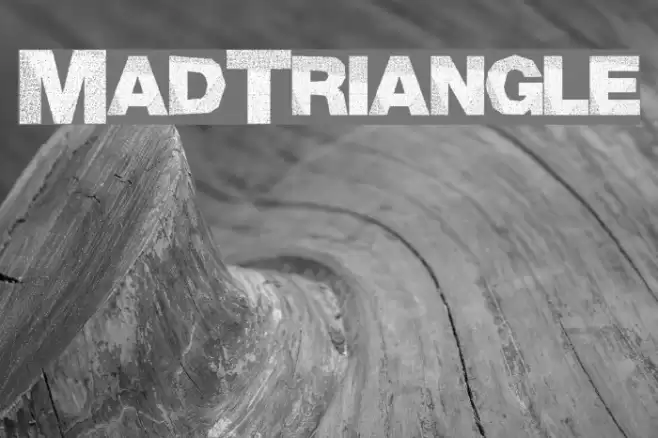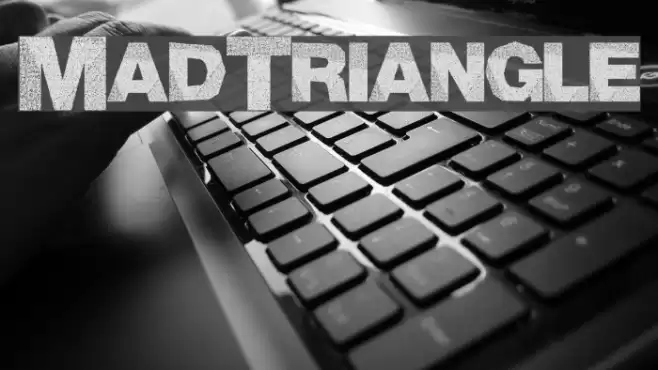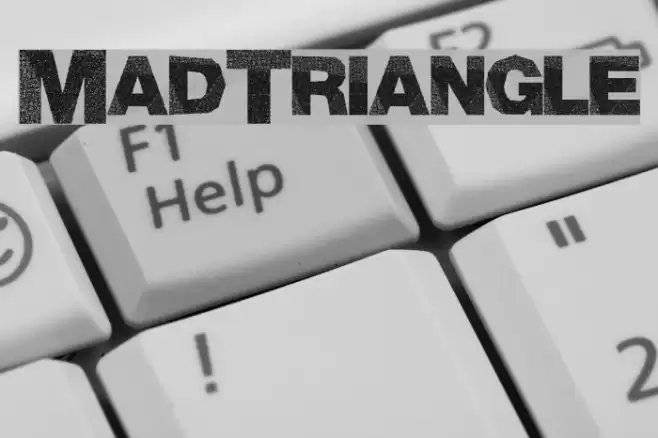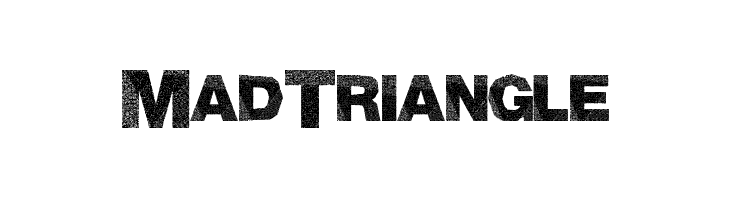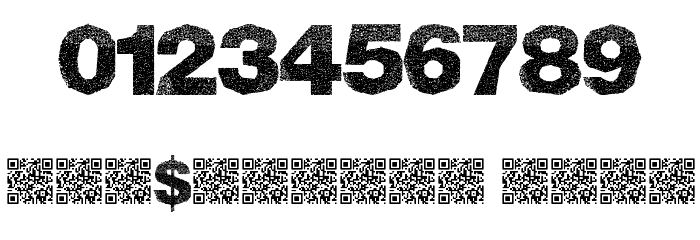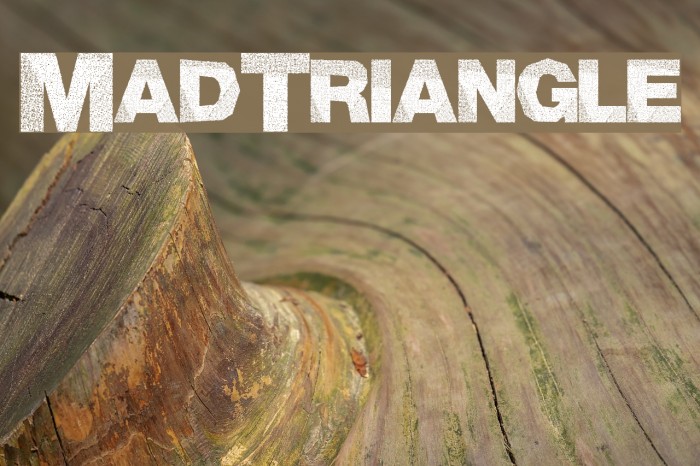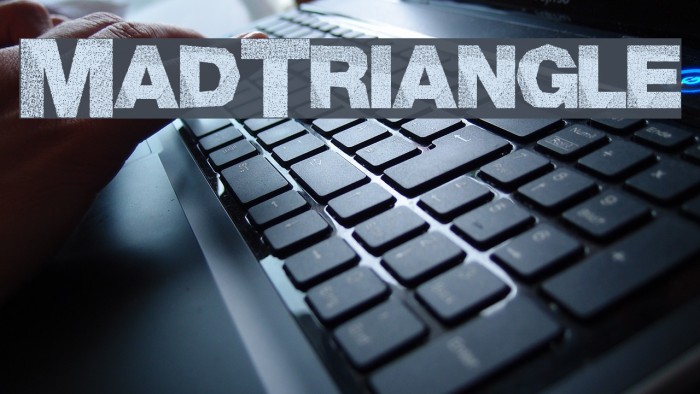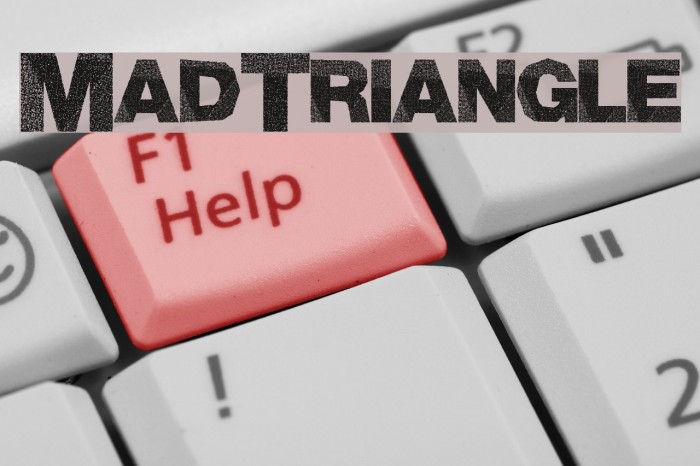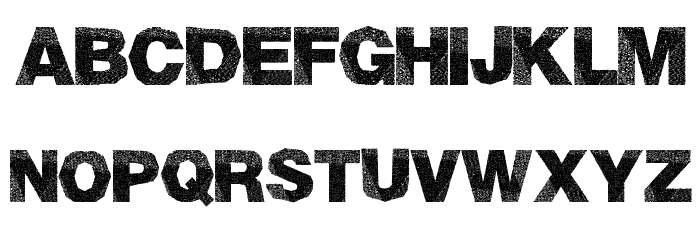
MadTriangle Font
MadTriangle Description
This font features a bold, textured style with a distressed appearance, giving it a gritty and rugged look. The characters are uppercase and have a uniform width, creating a strong and impactful presence. The texture resembles a speckled or grainy pattern, adding a unique visual interest to each letter. The font is suitable for projects that require a bold statement or an edgy, urban feel. Its distinct style makes it ideal for headlines, posters, or branding that aims to capture attention and convey a sense of strength and individuality.
A bold, textured font with a distressed, gritty appearance from Distorted Eroded fonts.
- Proposed Projects: Ideal for edgy branding, posters, headlines, and urban-themed designs.
- Use Case: Headlines, Posters, Branding